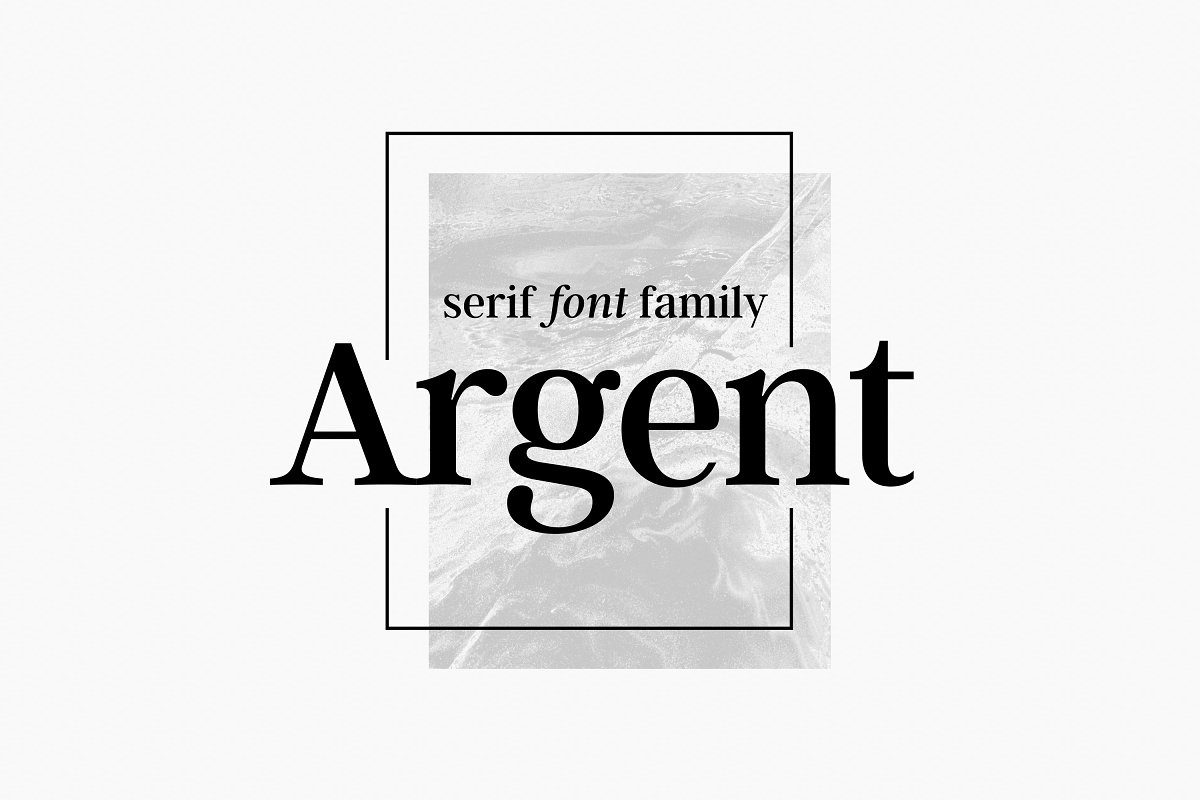
Argent CF Font
Argent CF Font is ideal for luxury financial services, premium investment branding, upscale banking communications, sophisticated wealth management materials, exclusive financial consulting, high-end precious metals marketing, refined monetary publications, prestigious economic forums, elite financial advisor presentations, and distinguished capital management firms.
What makes Argent CF Font so exciting is its exquisite embodiment of monetary sophistication and financial prestige that captures the lustrous elegance of precious metals through meticulously crafted typography designed for the highest echelons of financial communication. This luxuriously engineered typeface features refined letterforms with precious metal-inspired proportions and sophisticated character variations that immediately convey wealth, stability, and the gleaming excellence of premium financial services. The font's precious construction and monetary aesthetic create an instant sense of financial authority and silver-standard elegance, making it ideal for projects that need to communicate financial expertise, investment sophistication, and the transformative power of premium wealth management to audiences seeking the highest levels of financial service and meaningful wealth preservation strategies.
The Argent CF Font family typically includes multiple precious weights and financial styles, often featuring light, regular, and bold variations along with elegantly crafted italic versions. Luxury financial font families frequently offer additional monetary elements such as currency symbols, precious metal indicators, and wealth ornaments that enhance the sophisticated aesthetic and provide designers with comprehensive tools for creating genuinely prestigious and financially authoritative communications.
The monetary nature of Argent CF Font makes it particularly effective for targeting ultra-high-net-worth demographics where projecting financial sophistication and precious metal quality are essential for premium positioning. Wealth advisors and luxury financial marketers will find this font especially valuable for materials that must establish immediate financial credibility and connect with audiences seeking authentic precious metal investment opportunities and meaningful wealth preservation services.
What sets Argent CF Font apart is its ability to convey precious metal quality while maintaining the professional restraint required for sophisticated financial communication. This refined characteristic makes it suitable for both exclusive investment applications and conservative wealth management contexts where projecting monetary expertise and maintaining fiduciary trust must coexist harmoniously.
Professional designers recognize that Argent CF Font brings invaluable financial credibility to projects across industries including private banking, investment management, precious metals trading, and wealth preservation services. Its silver character and monetary appeal make it essential for organizations whose mission centers on protecting wealth, advancing financial sophistication, and creating meaningful connections between precious metal stability and long-term financial security.
The carefully calibrated monetary sophistication of Argent CF Font ensures consistent financial messaging across all wealth-focused communication applications while honoring the precious metal standards of financial excellence.